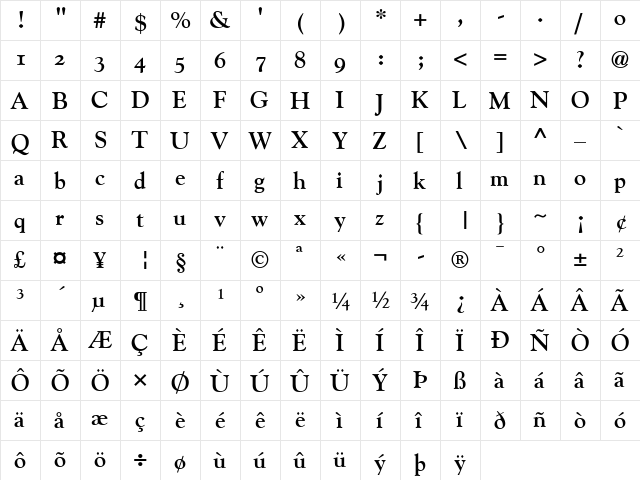
Goudy SC Bold
Design Context for Goudy SC Typeface
Goudy SC offers clean, dependable letterforms without strong stylistic allegiance, making it a practical choice for designers who need flexibility. Its bold stroke weight gives it real presence on the page.
Pro Tip: Pair Goudy SC with a font of contrasting weight or personality to build a more expressive typographic hierarchy.